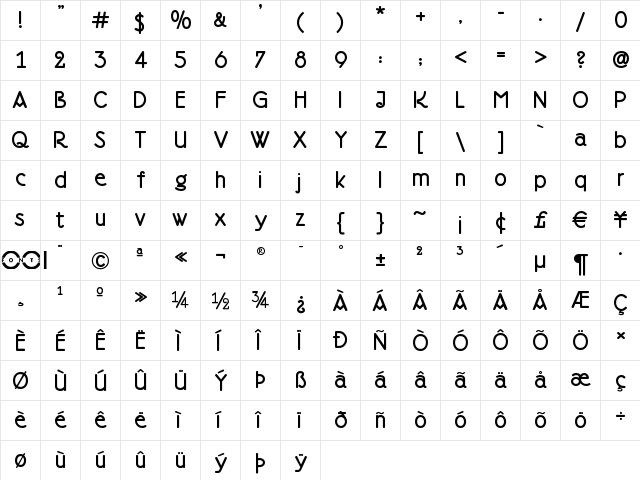
Doctor Jekyll NF Regular
| Foundry | Nick's Fonts |
| Designer | Nick Curtis |
Design Context for Doctor Jekyll NF Typeface
Doctor Jekyll NF is a composed and adaptable typeface that performs quietly and consistently across a wide range of design contexts.